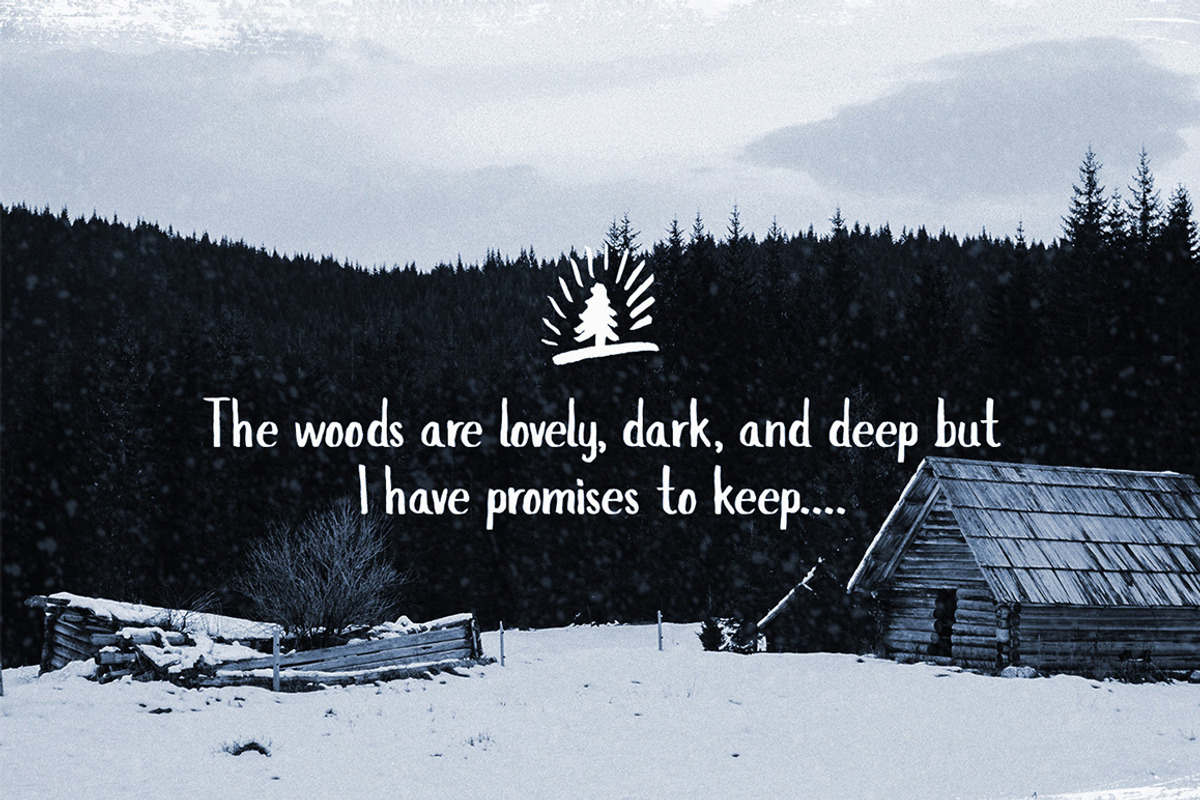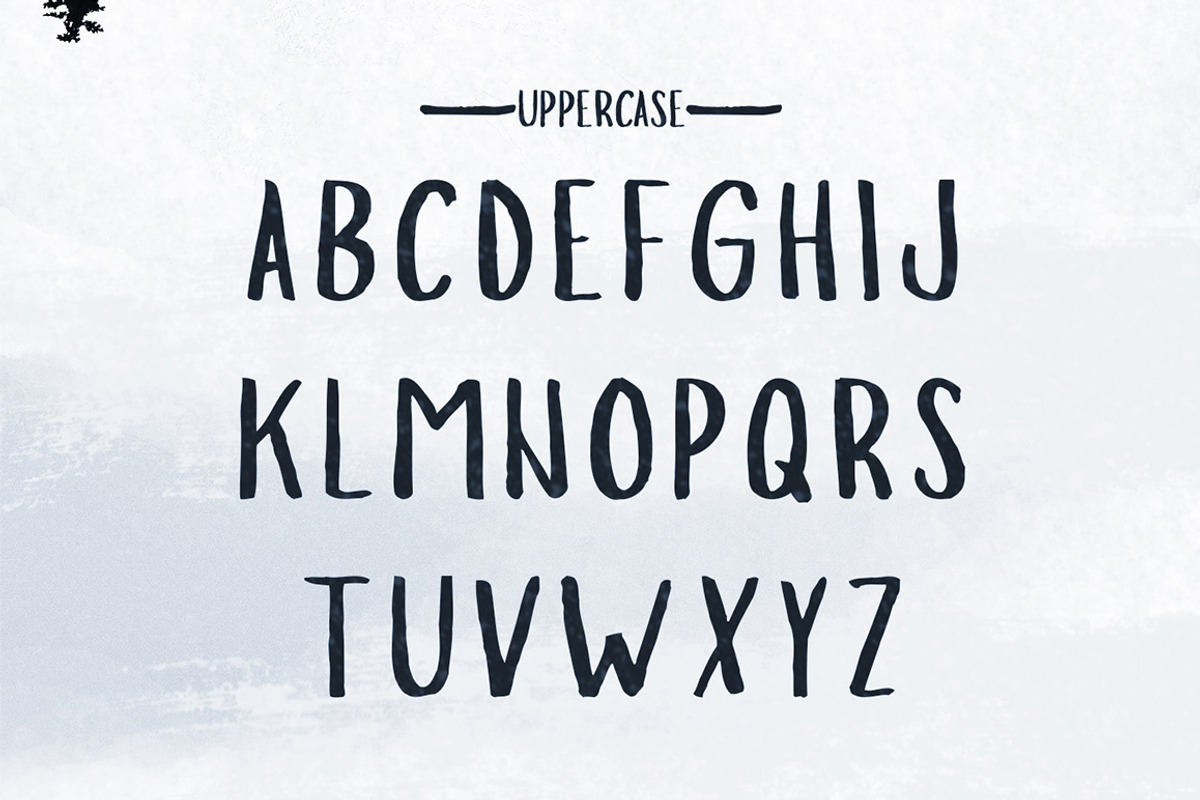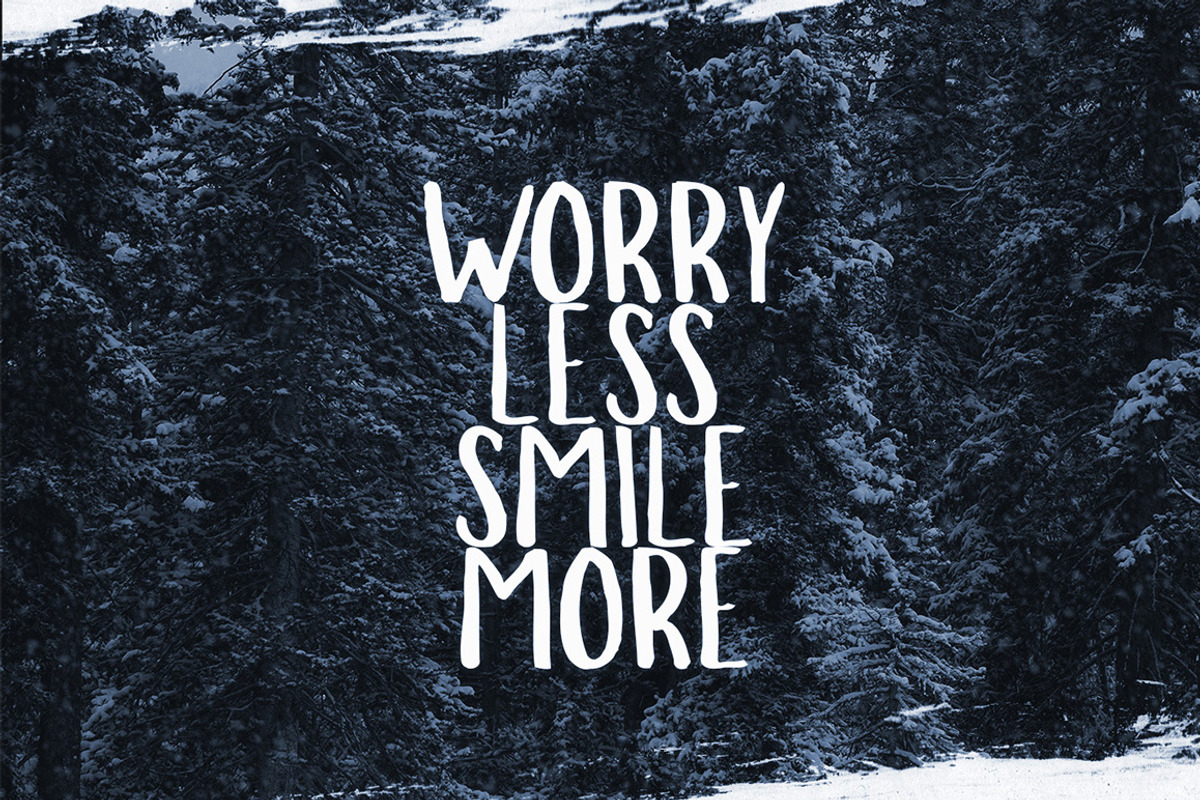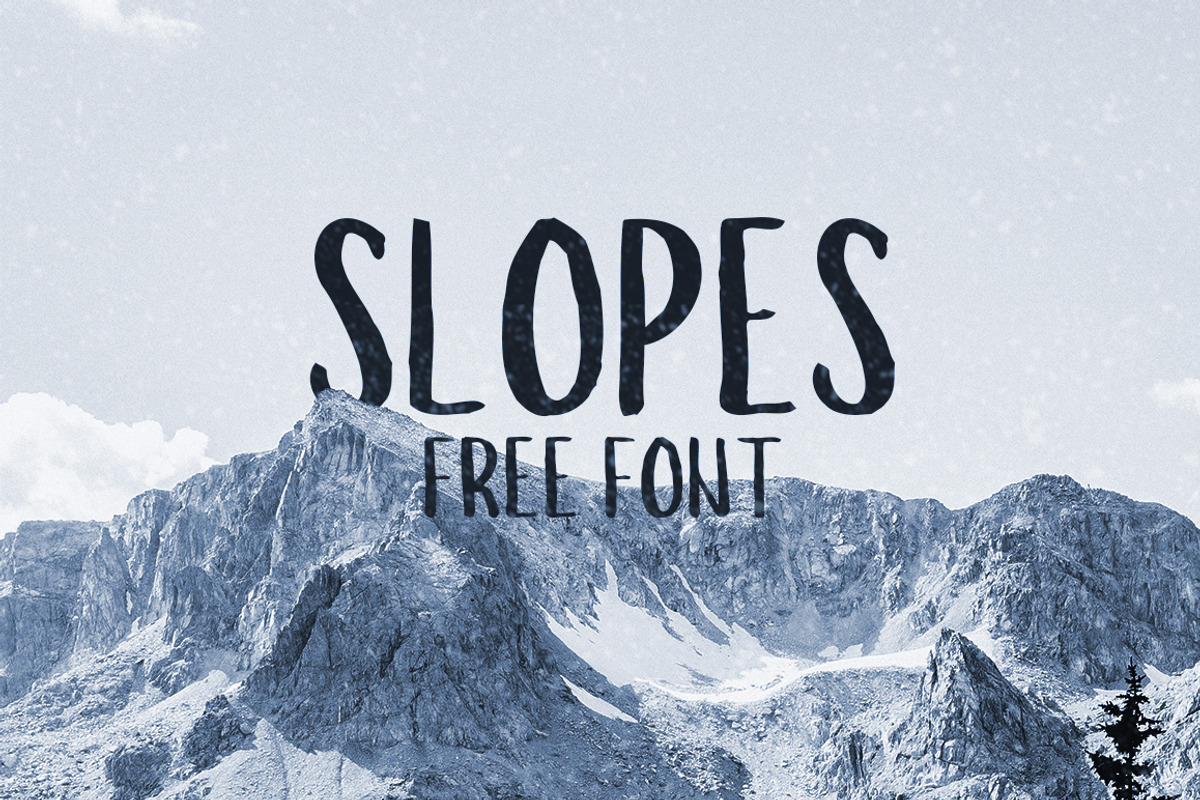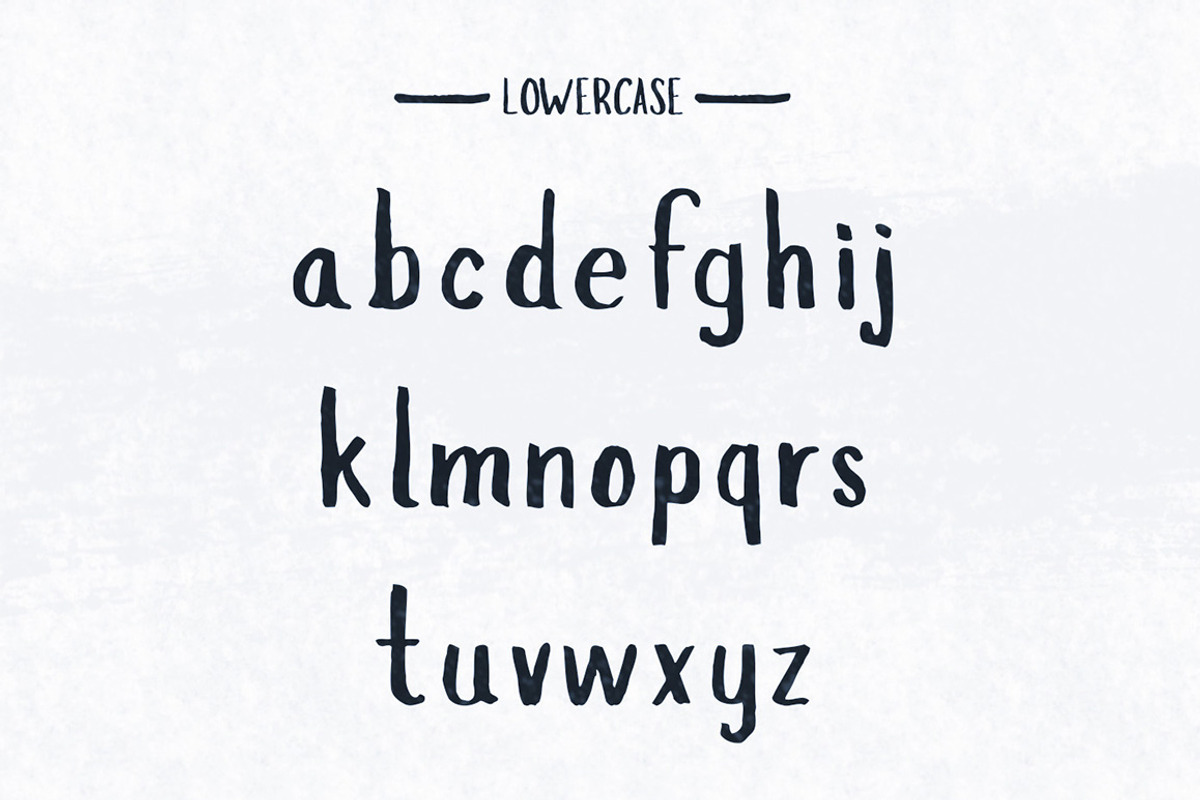
Slopes Brush Font
Slopes Brush Font by BorisG is a font selected for branding, posters, packaging, typography.
- Multilingual support includes Russian, Cyrillic, Central European, Turkish etc.
Why Slopes Brush Font is worth a look
Slopes Brush Font by BorisG fits naturally into Branding, posters, packaging, typography.